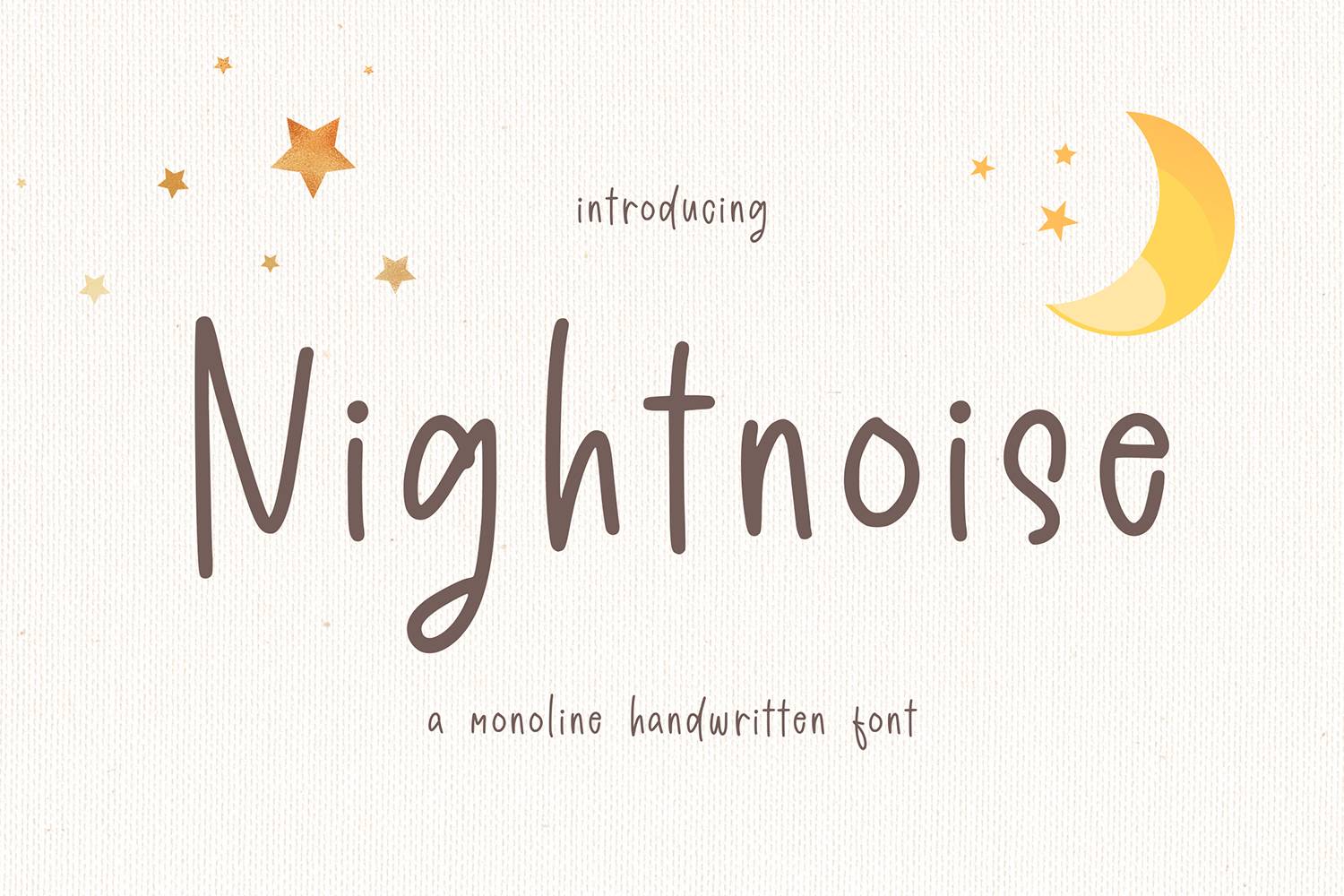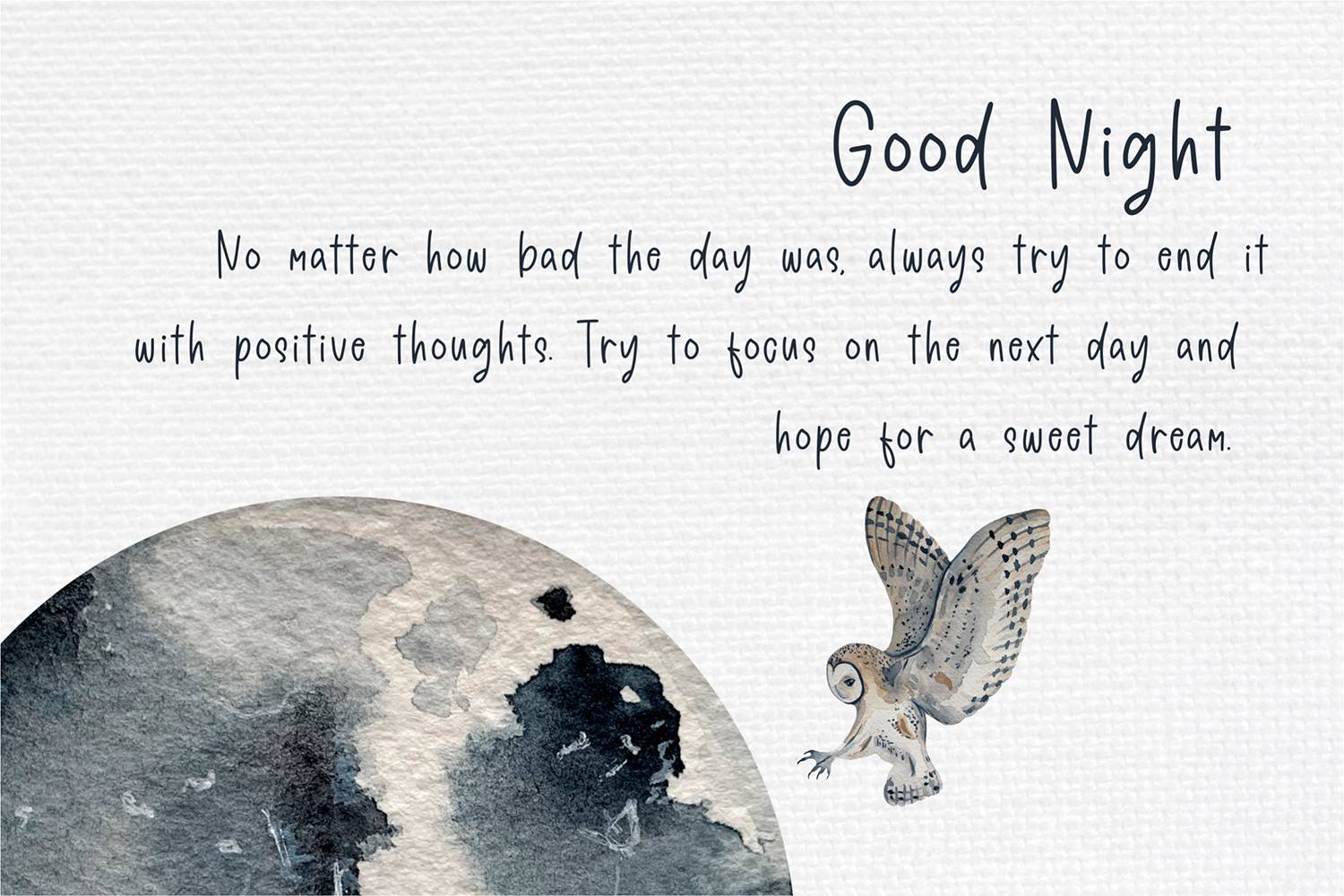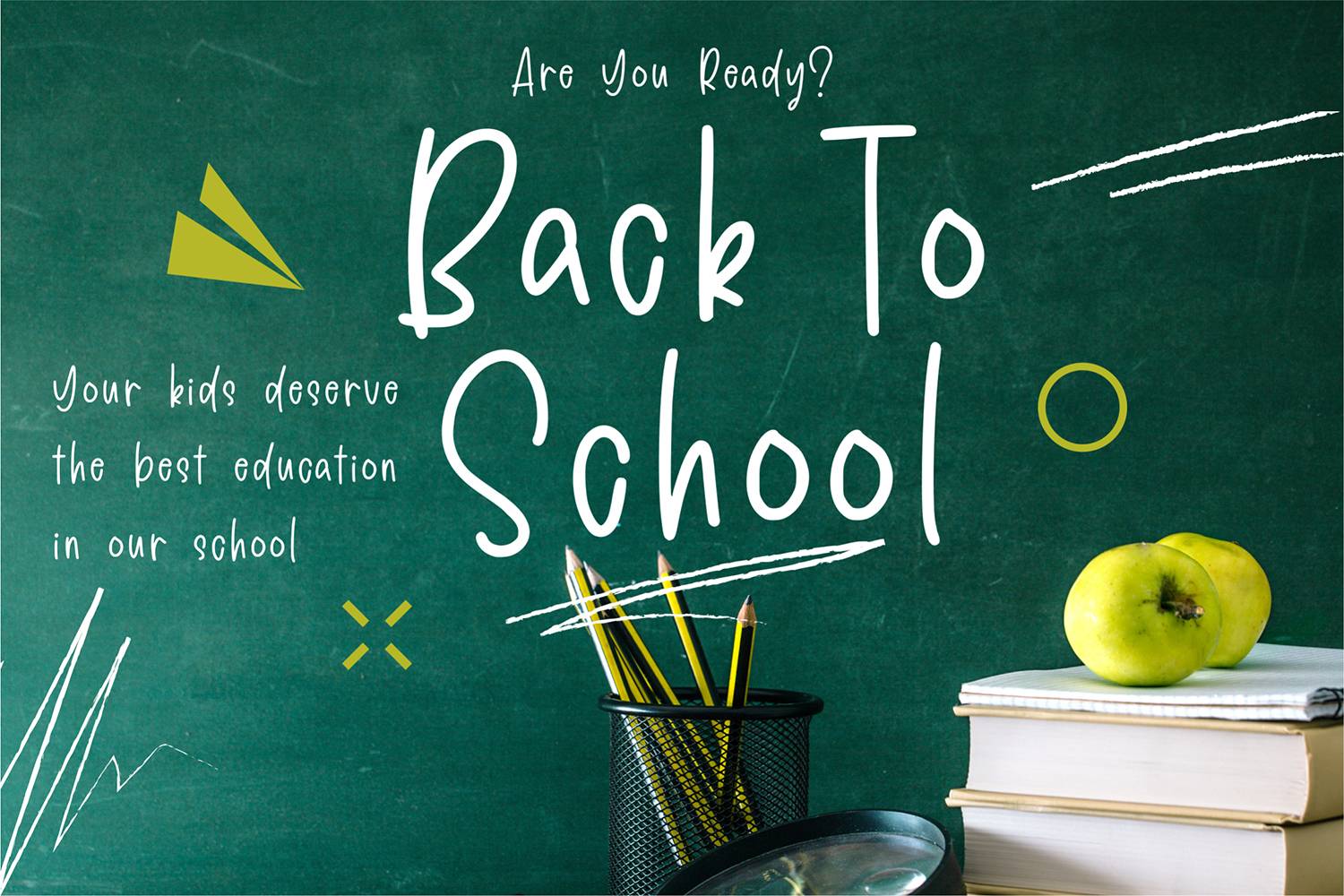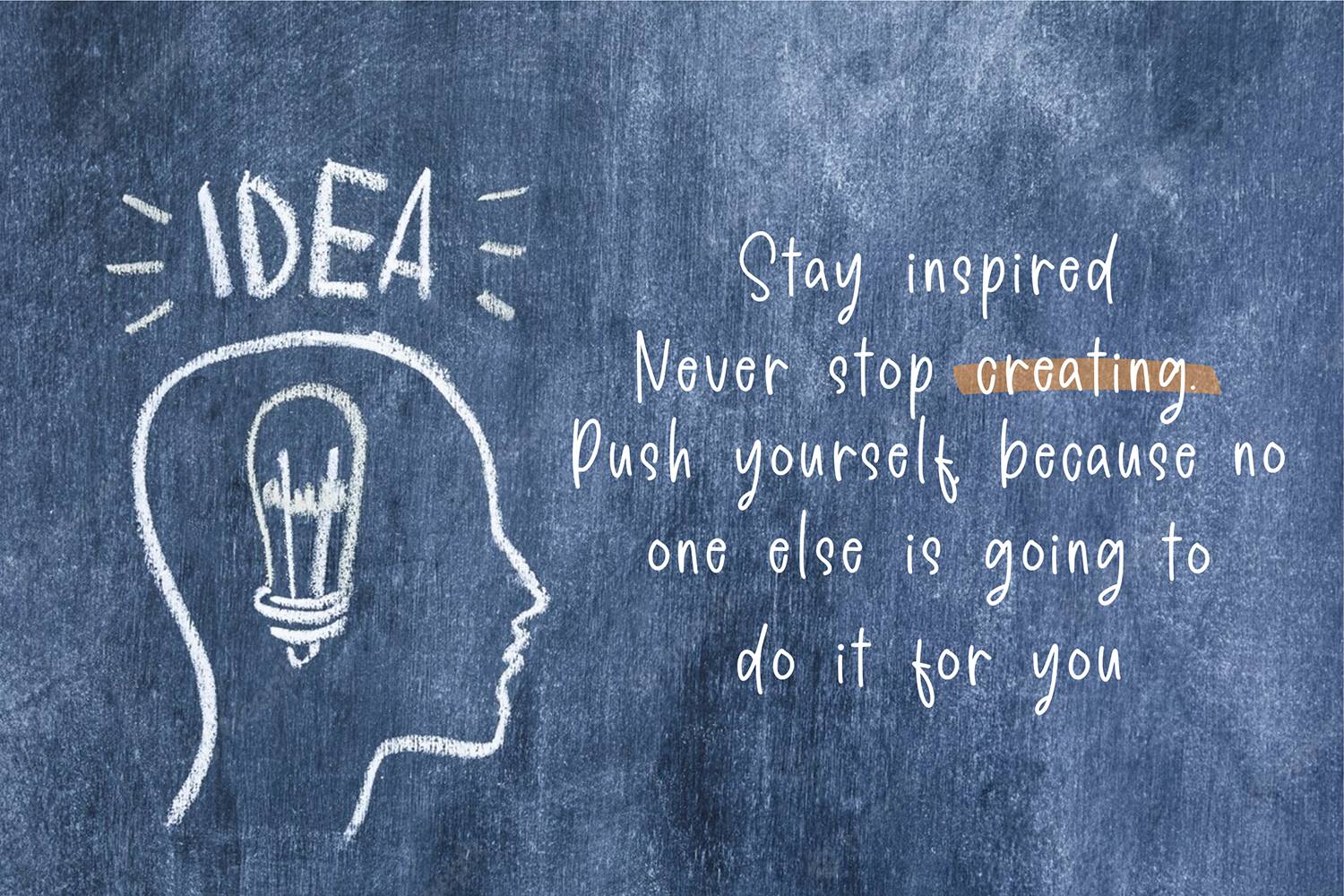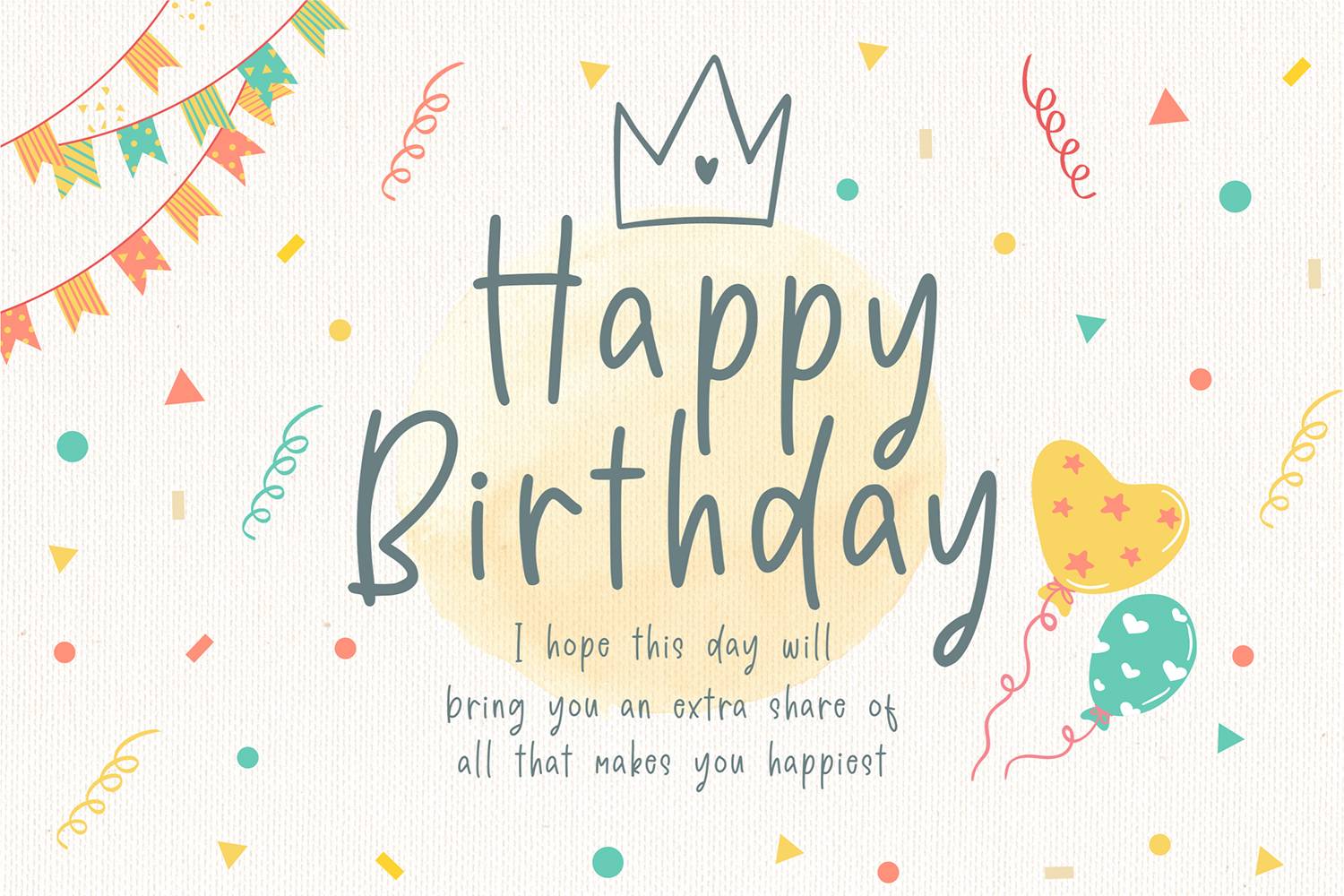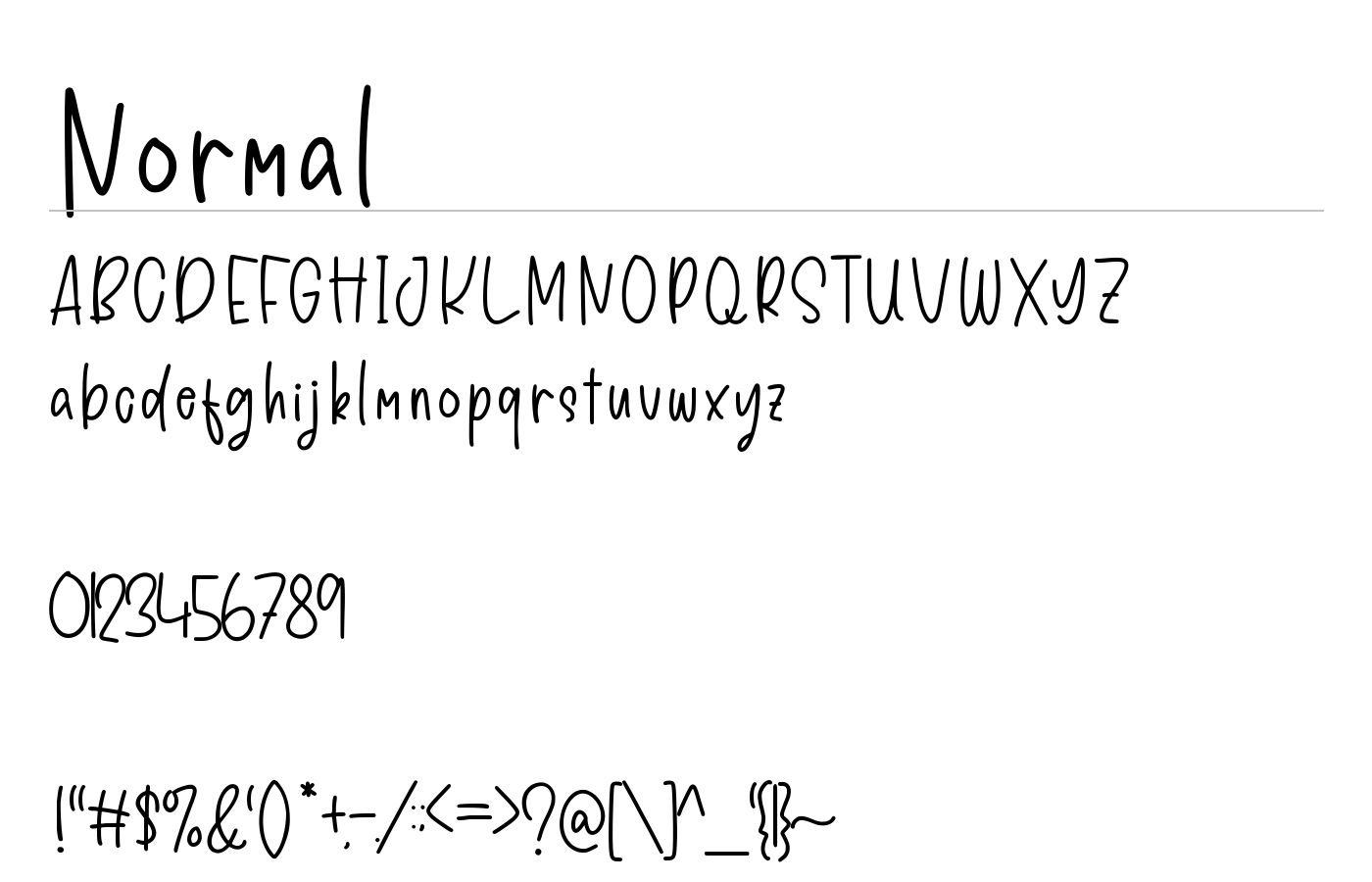
Nightnoise is a playful and casual handwritten sans serif font with a light weight and tall, narrow letterforms that create an airy and informal feel. Its strokes are smooth and slightly irregular, giving it a friendly, personal touch ideal for creative, youth-focused, or relaxed branding and editorial projects. This font works well in headlines, invitations, and social media graphics where a whimsical yet readable style is desired.
Nightnoise Font
About Nightnoise Font